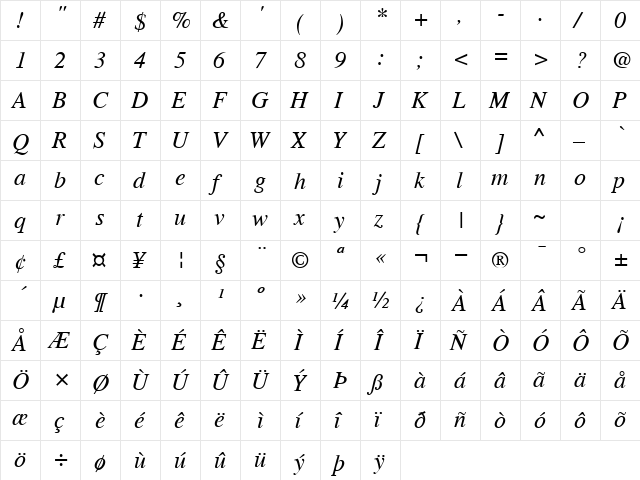
Tribune Italic
Design Context for Tribune Typeface
Tribune takes a measured approach to typography — its balanced proportions and neutral character make it a reliable workhorse for both digital and print work. The slanted form adds forward momentum and visual energy.
Pro Tip: Try Tribune for annotation and caption copy alongside an upright companion — the contrast in angle creates a dynamic but ordered typographic system.